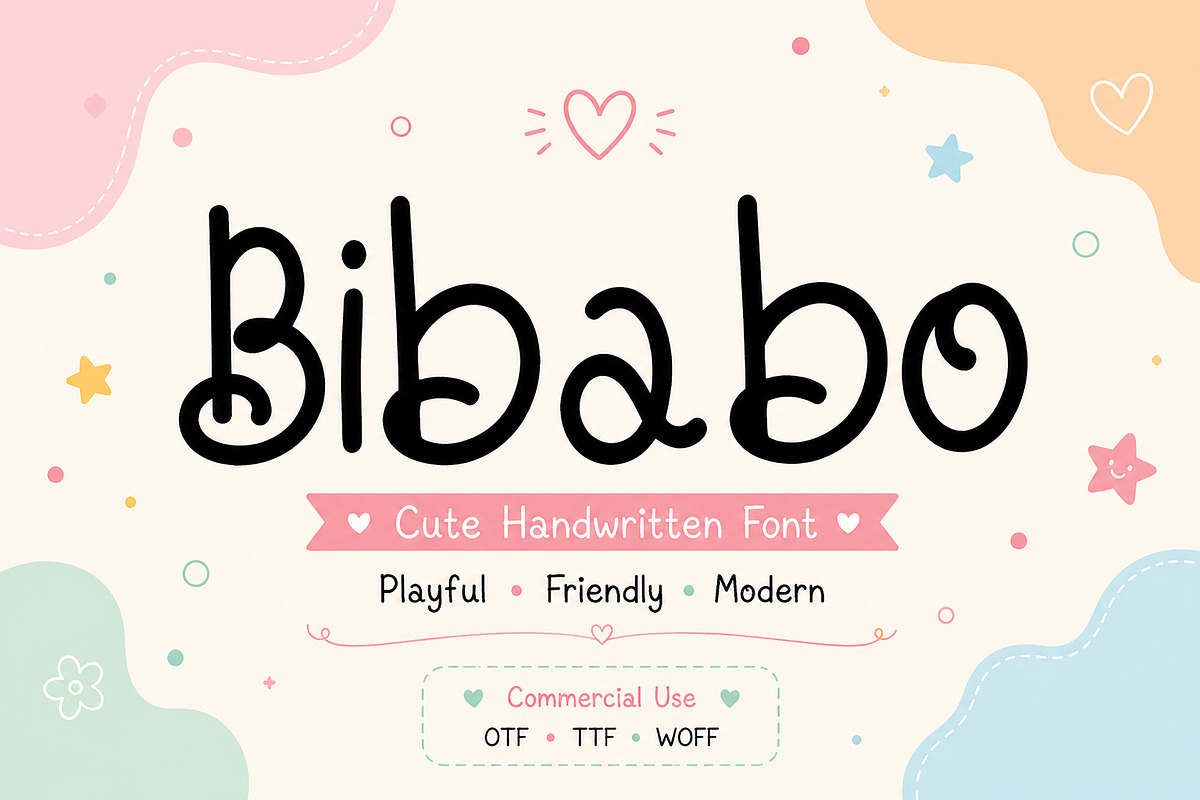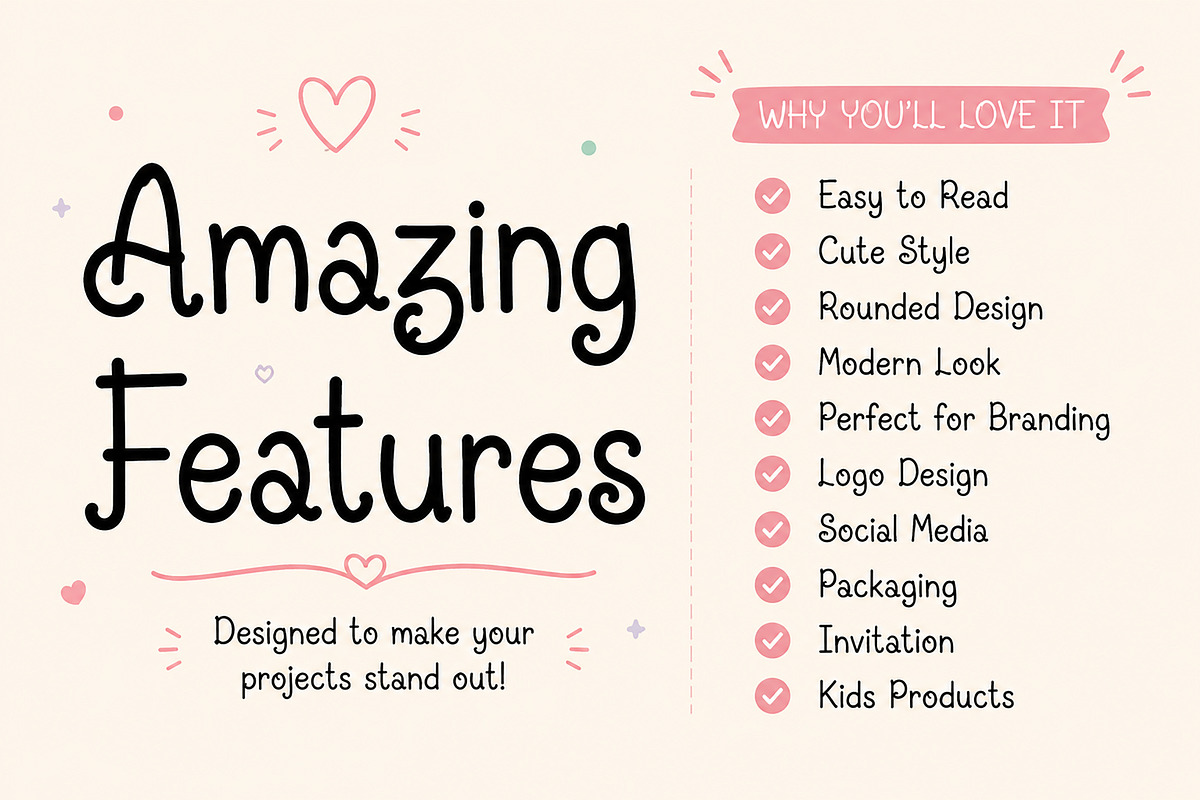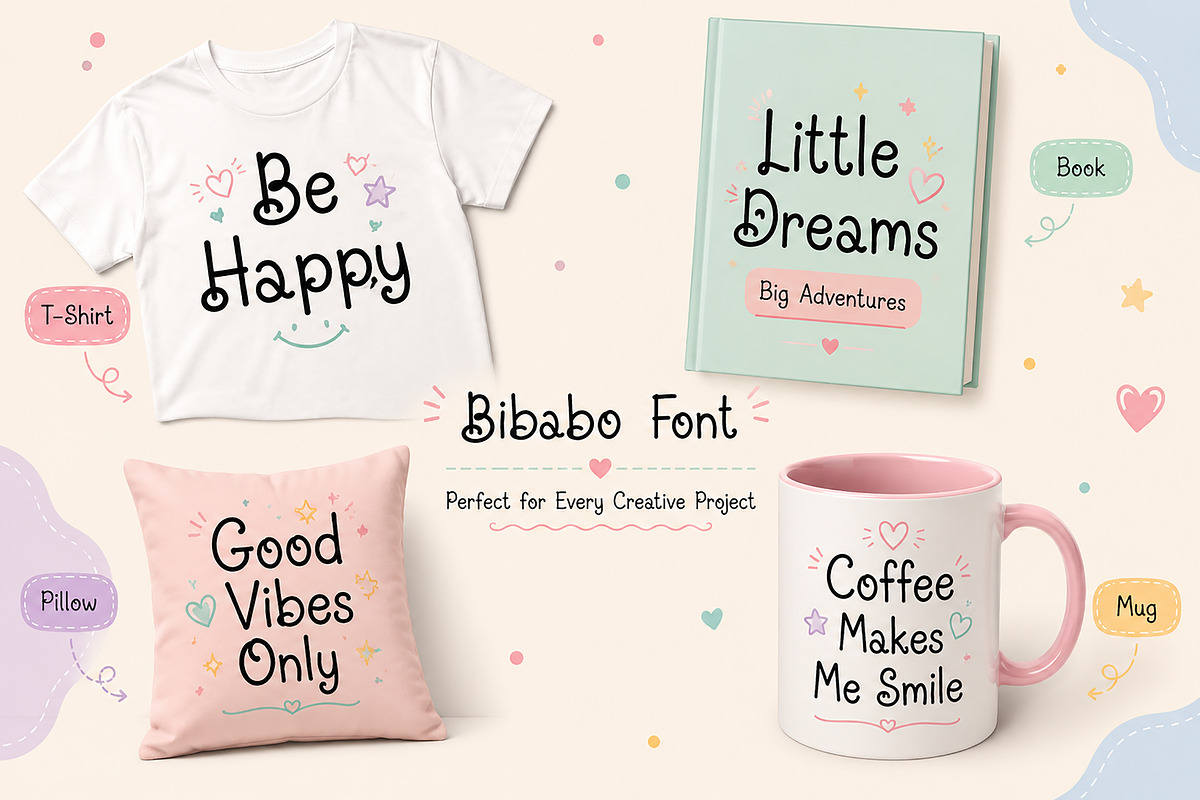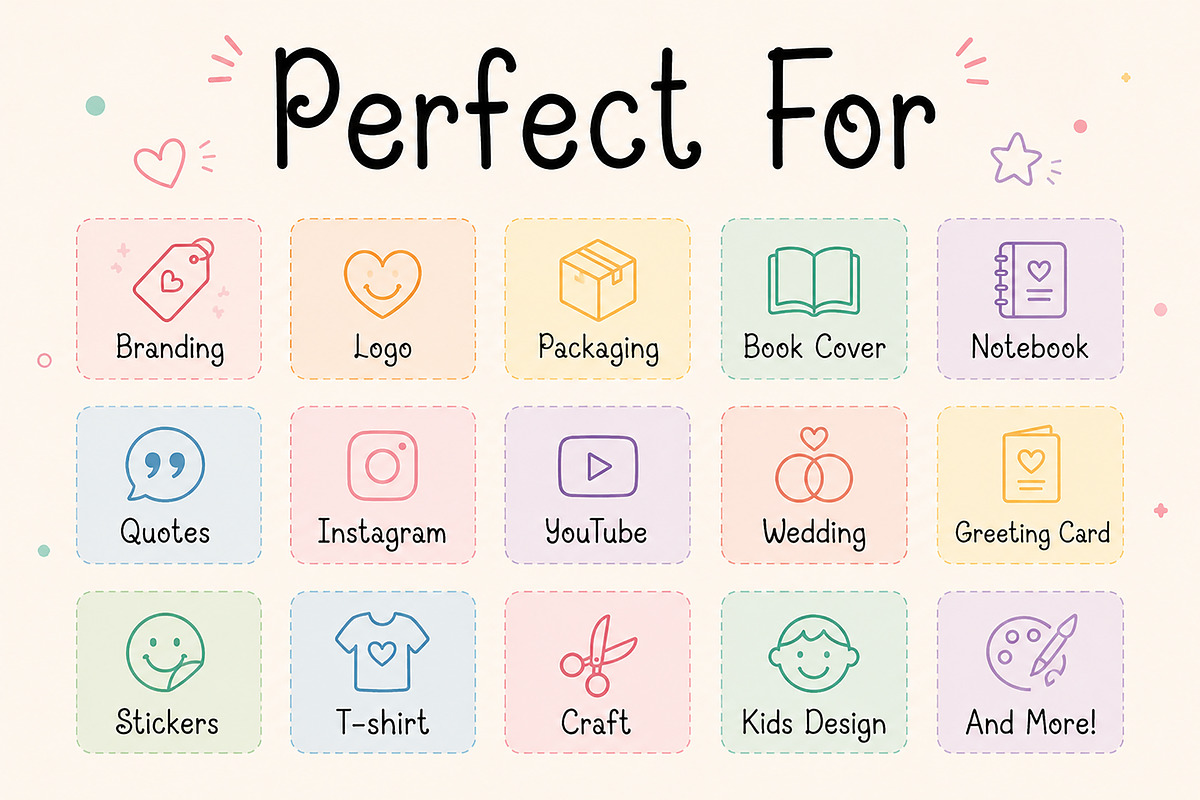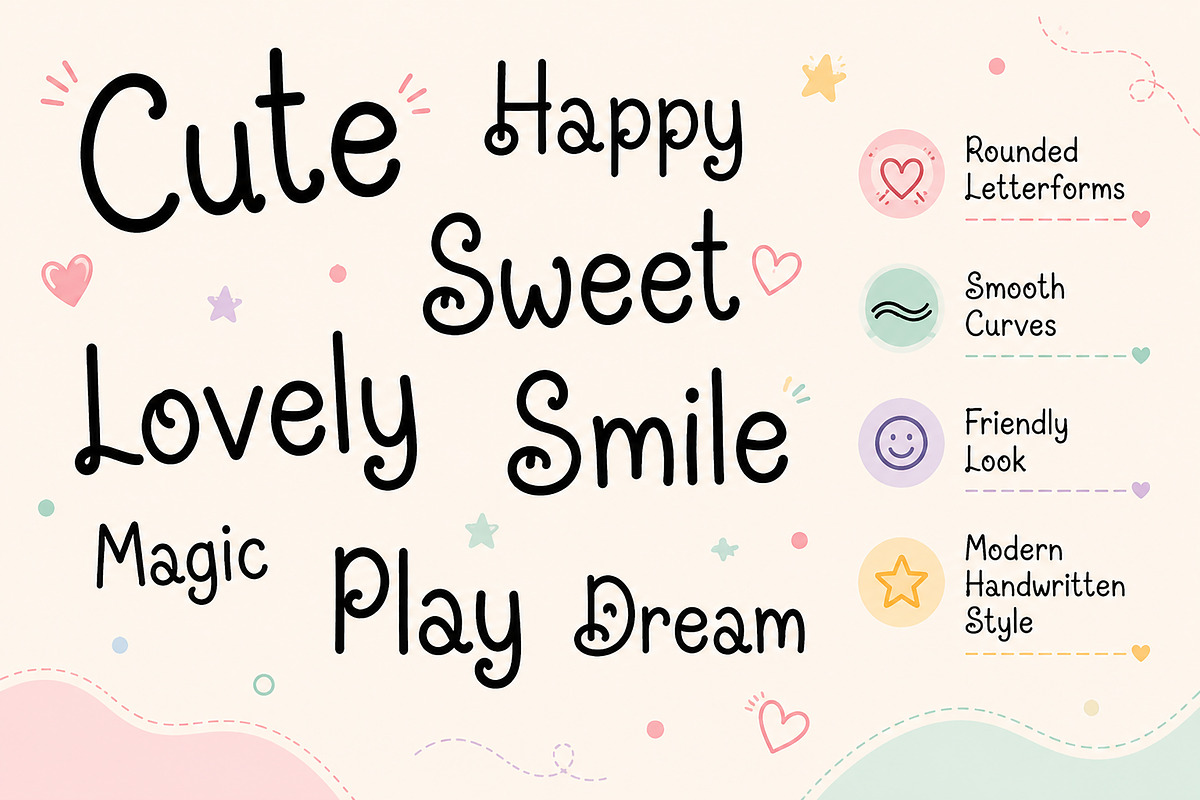
Bibabo – Cute Handwritten Font
Bibabo is a fun, playful, and charming handwritten display font designed to bring warmth and personality to your creative projects. Featuring rounded letterforms, smooth curves, and a friendly handcrafted feel, Bibabo is perfect for designs that need a cheerful and approachable touch.
Whether you're creating eye-catching branding, adorable packaging, social media graphics, children's products, greeting cards, or fun merchandise, Bibabo adds a unique and delightful style that instantly stands out.
Its clean yet whimsical appearance makes it easy to read while maintaining a handcrafted character, making it an excellent choice for both digital and print projects.
Branding & Visual Identity
Children's Products
Greeting Cards
Invitations
Stickers
T-Shirts
Notebooks & Journals
Instagram Posts
YouTube Thumbnails
Quote Designs
Posters
Craft Projects
DIY Creations
Scrapbooking
Printable Designs
Creative Merchandise
Cute Handwritten Style
Rounded Letterforms
Smooth Curves
Friendly & Playful Look
Easy to Read
Modern Display Typeface
Perfect for Print & Digital Design
Bring joy, creativity, and personality to your next project with Bibabo, a playful handwritten font made for designers who love fun, modern, and charming typography.